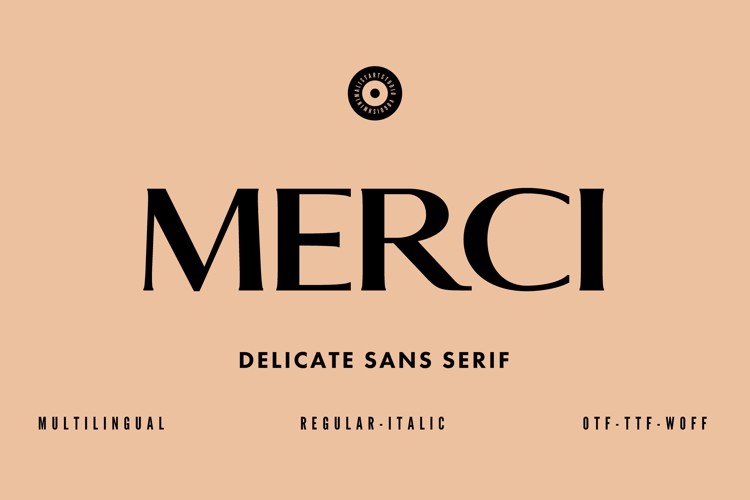
Merci Font
π¨ Font Name: Merci by Minimalist Art Studio
π¨ Font Description: Merci is a delicate sans serif with multilingual supportβideal for elegant branding, soft editorial layouts, and minimalist packaging.
β Complete Latin set + multilingual diacritics
β Alternates, stylistic sets & ligatures
β Numbers, small caps, and extended punctuation
β Bonus italics and family styles